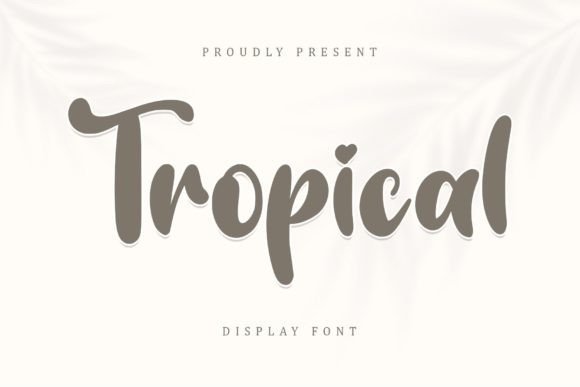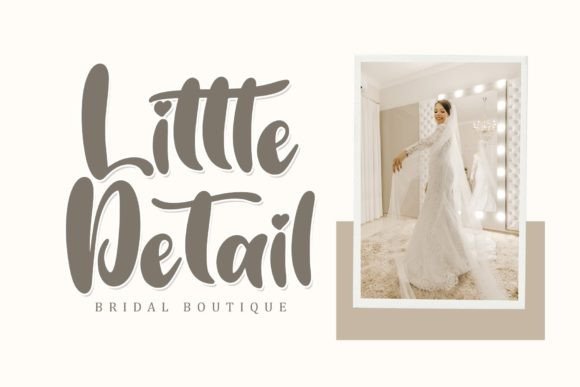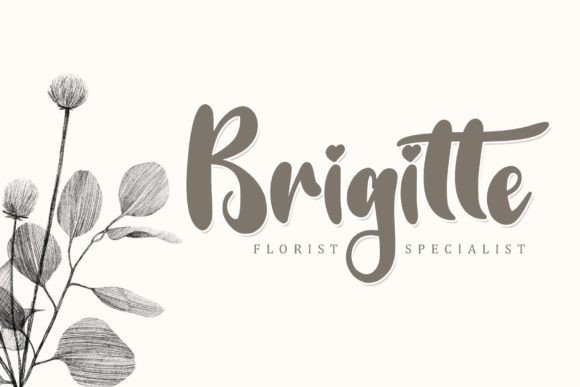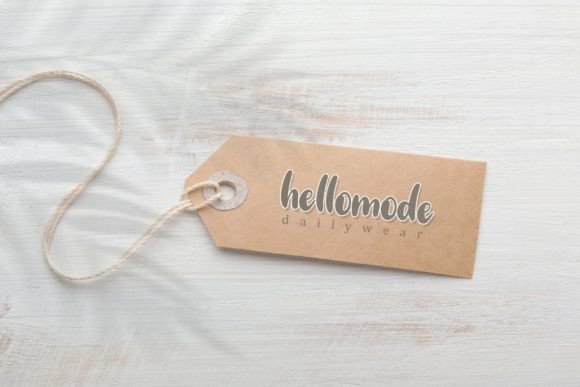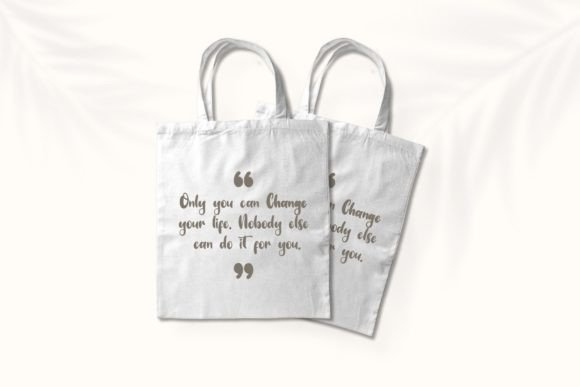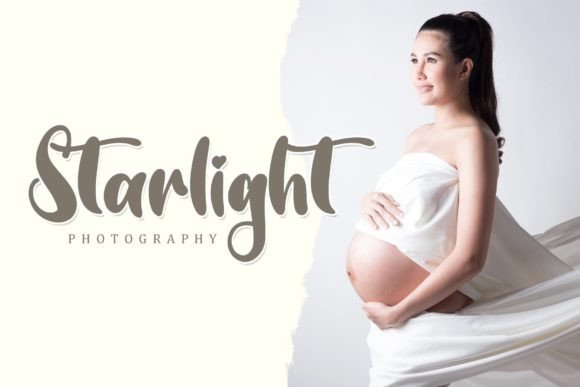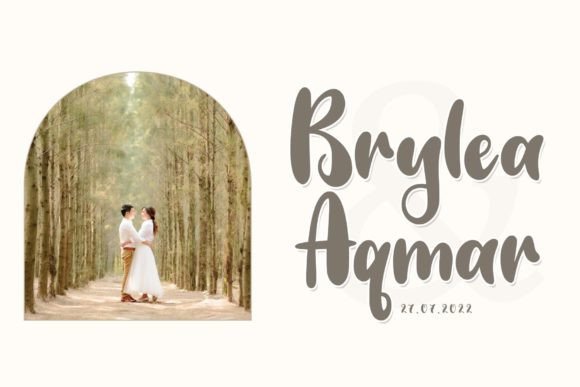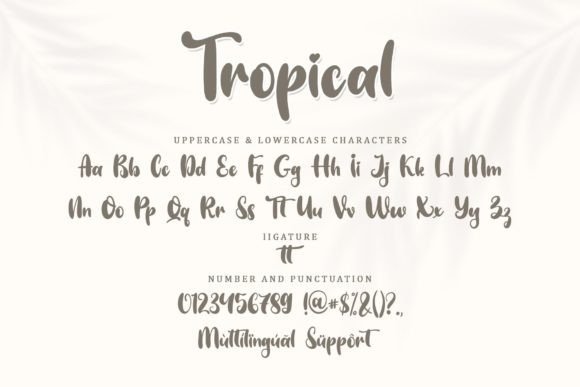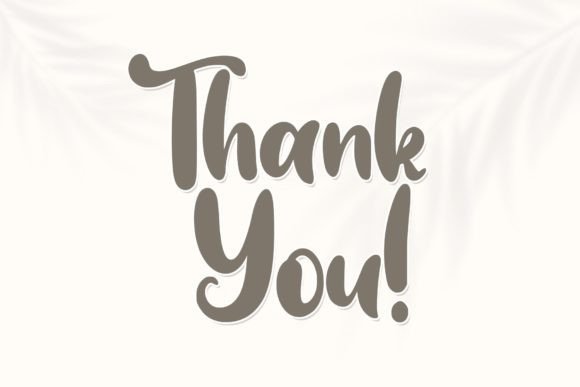
Tropical Font
About Tropical Font
“Tropical Display” is described as a sweet handwritten font crafted for display contexts. This gentle font is designed to enhance a variety of design ideas, adding a touch of joyfulness and romance to each project it graces. It’s perfectly suited for branding, logos, wedding-related materials, greeting cards, fashion projects, lookbooks, marketing promotions, or any situation where you want to achieve a fancy and elegant yet casual appearance.
The handwriting style of “Tropical Display” contributes to its charm, providing a delightful and personal touch to your designs. Its versatility allows it to seamlessly integrate into various contexts, from sophisticated branding to more casual and inviting projects.
Whether you’re working on creating an elegant brand identity, designing a romantic wedding invitation, or crafting promotional materials that exude a sense of joy, “Tropical Display” offers a visually appealing and versatile option.
In summary, “Tropical Display” is a font that not only brings sweetness to your designs but also infuses them with a touch of casual elegance. Its handwritten aesthetic makes it suitable for a wide range of applications, allowing you to add a joyful and romantic vibe to your creative projects.